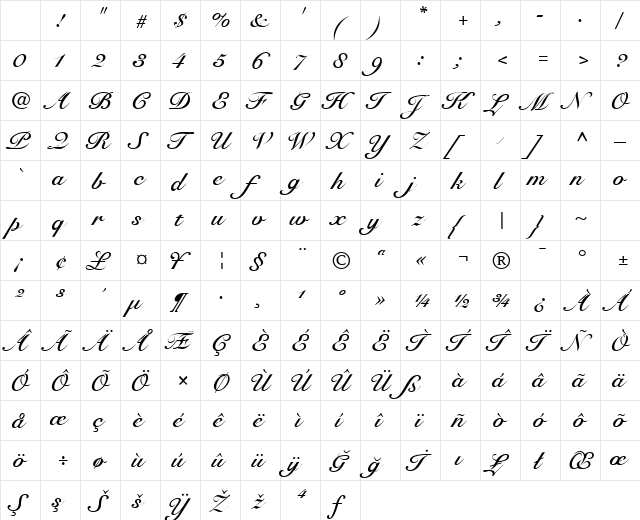
Complete TFF Script Roundhand Bold Italic glyph index. Displaying only characters natively supported by TFF Script Roundhand Bold Italic font.
TFF Script Roundhand flows with the natural rhythm of handwritten lettering, making it ideal for designs that call for warmth and personal expression. Its bold stroke weight gives it real presence on the page.
Font Pairing: Combine TFF Script Roundhand with a simple geometric sans for maximum contrast - the tension between flowing curves and clean structure is a classic typographic pairing.
Pro Tip: Use TFF Script Roundhand for short runs of text - names, titles, or taglines. Extended body copy in script faces tires the eye quickly.